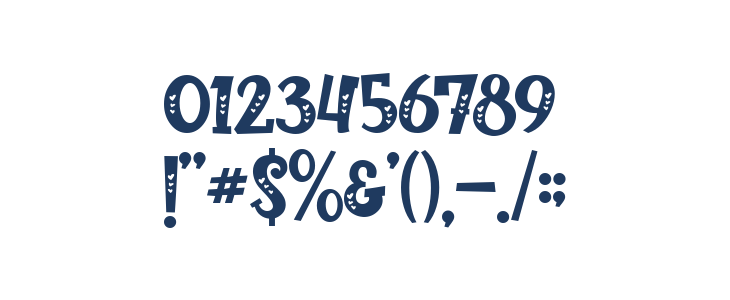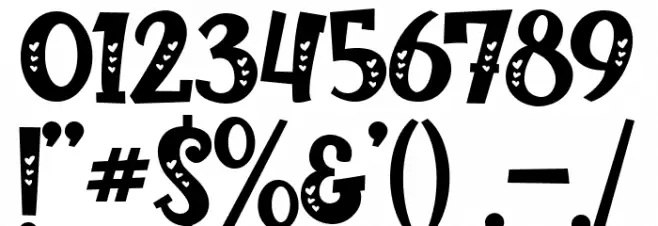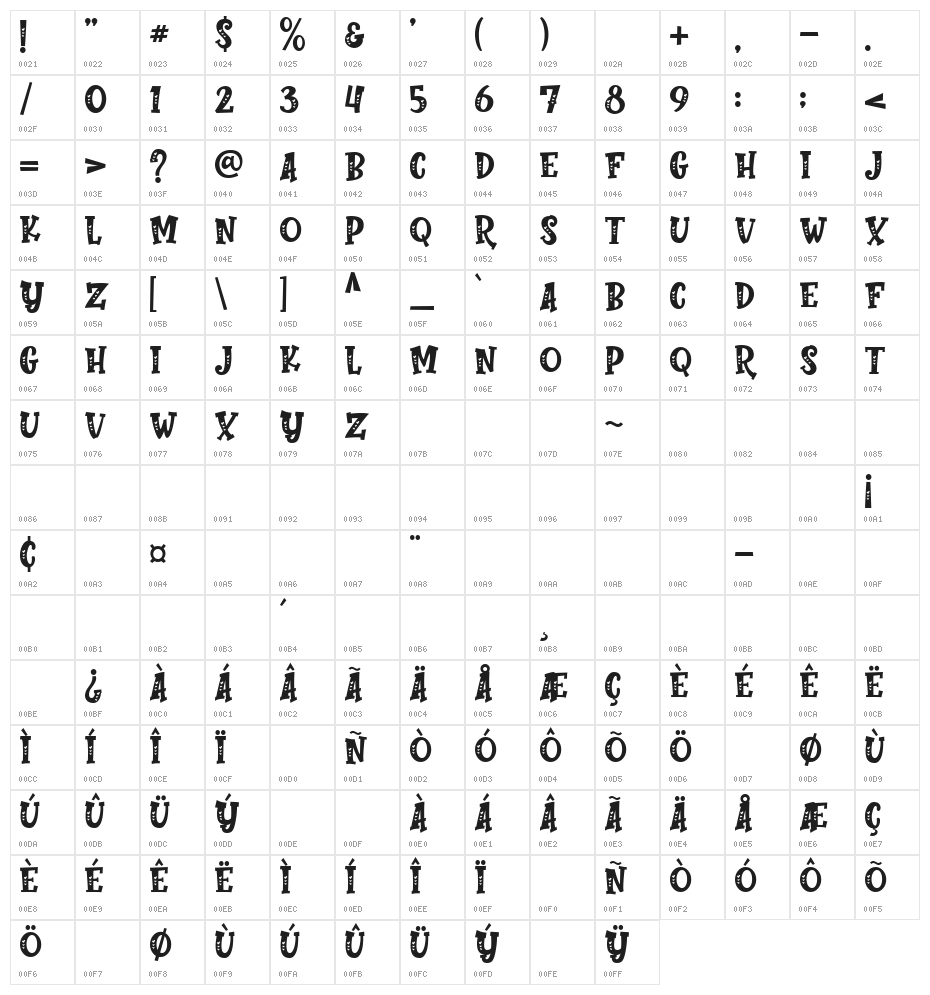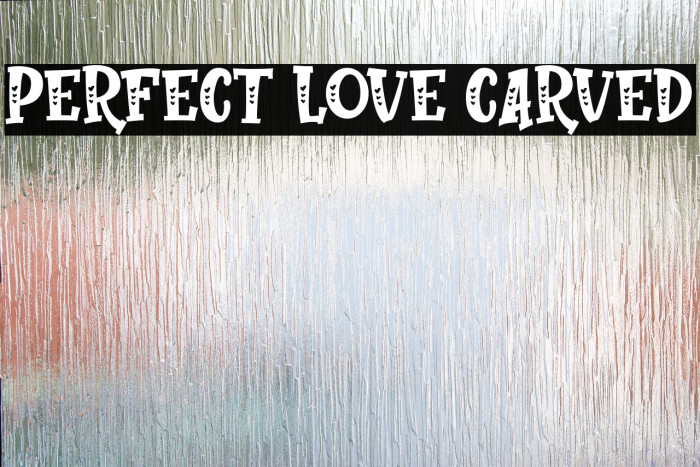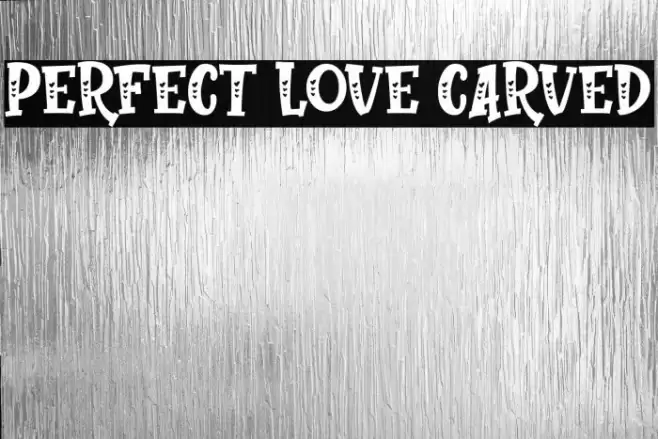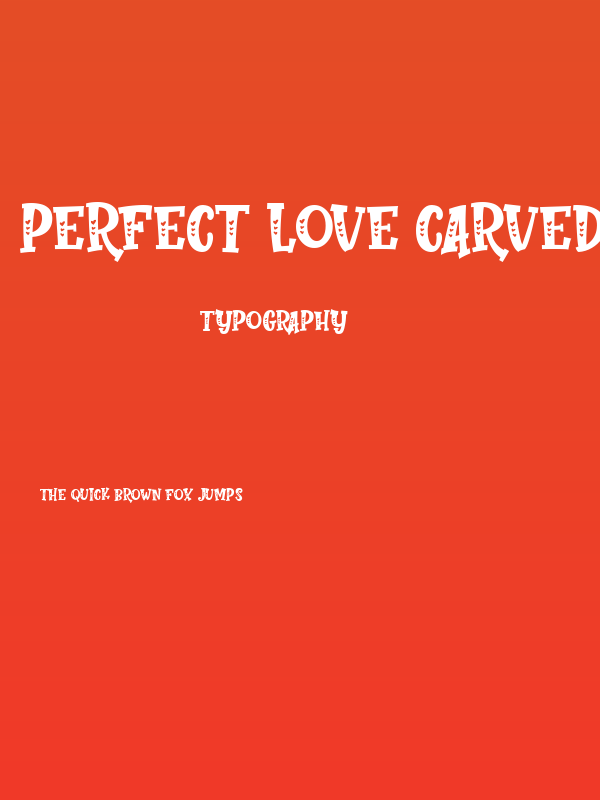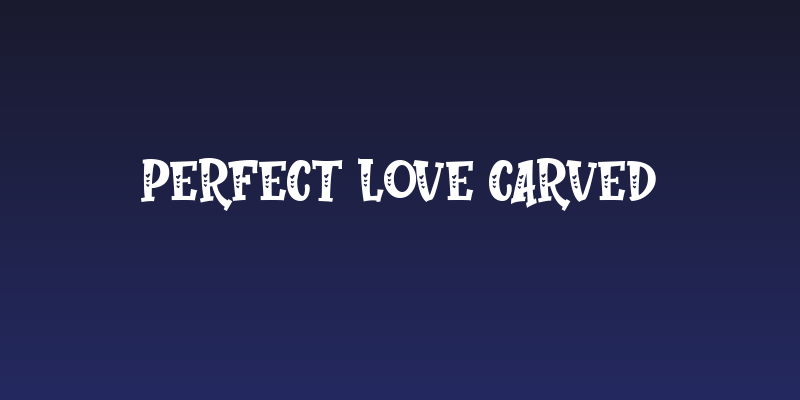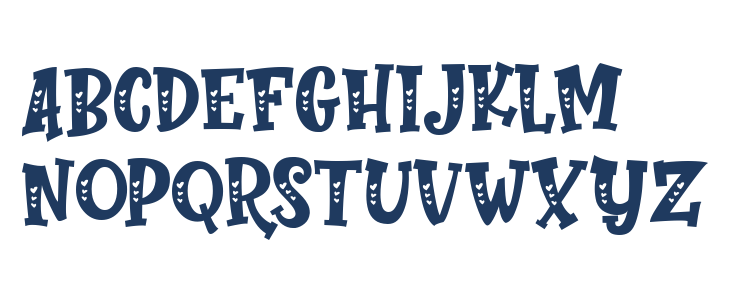
Perfect Love Carved Font
Perfect Love Carved Description
This playful and decorative font features bold, whimsical characters with heart-shaped cutouts, adding a touch of romance and fun. The uppercase and lowercase letters are designed with a slight tilt, giving them a dynamic and lively appearance. The numbers and special characters maintain the same playful style, making the font cohesive and versatile. The thick strokes and unique design elements make it stand out, ideal for projects that require a touch of charm and creativity.
| Proposed Projects | Perfect for Valentine's Day cards, wedding invitations, playful branding, children's book covers, and any design needing a romantic or whimsical touch. |